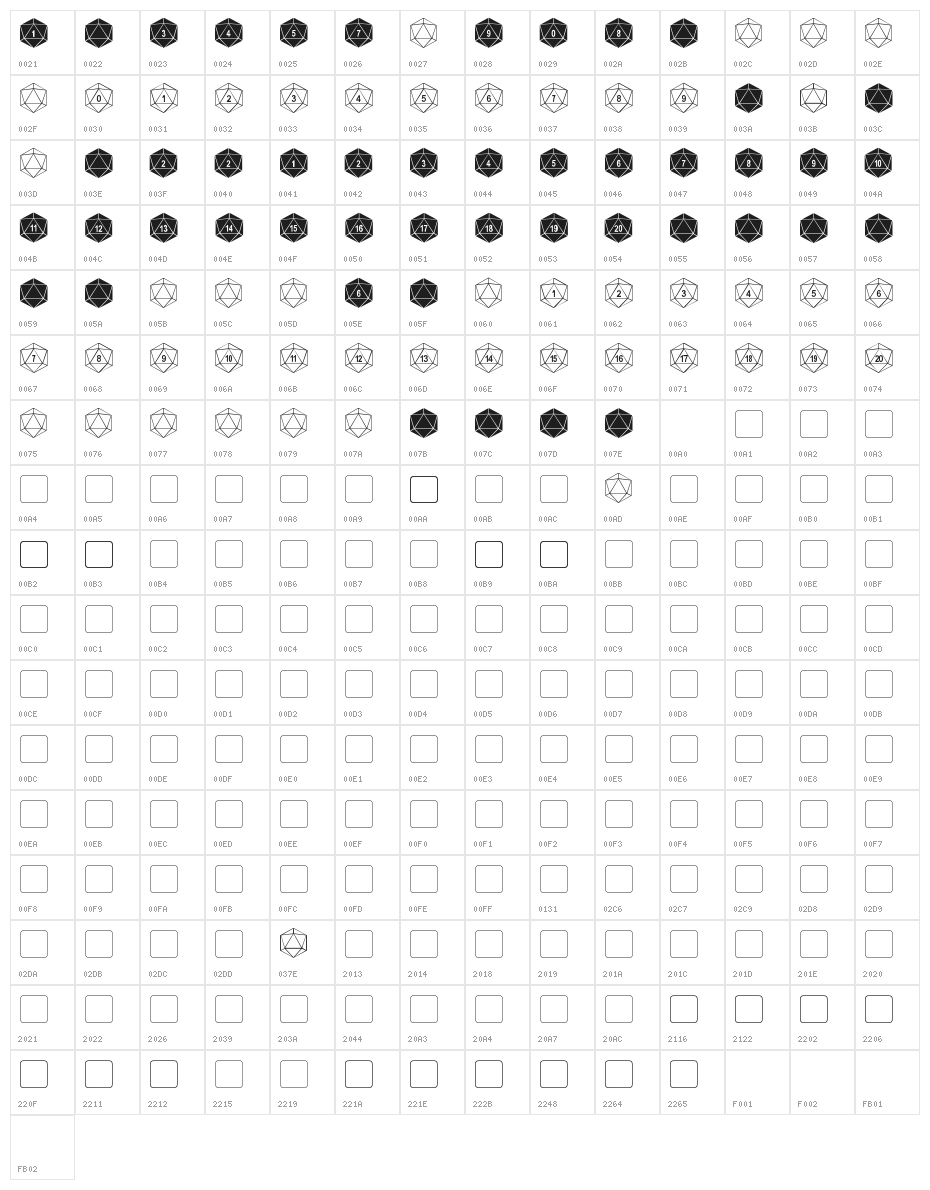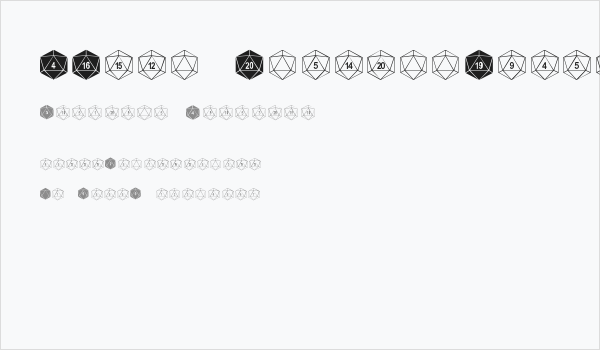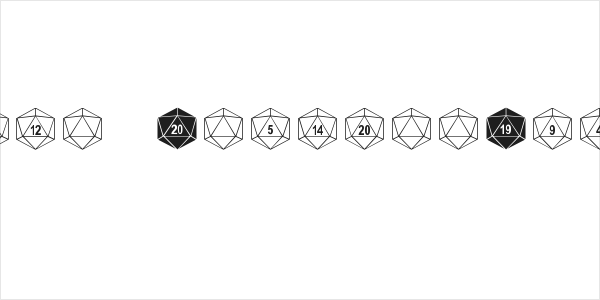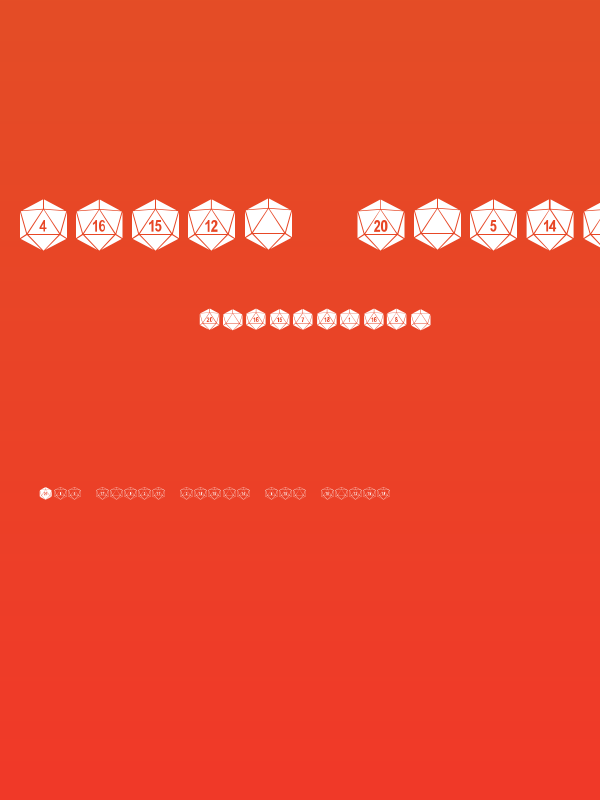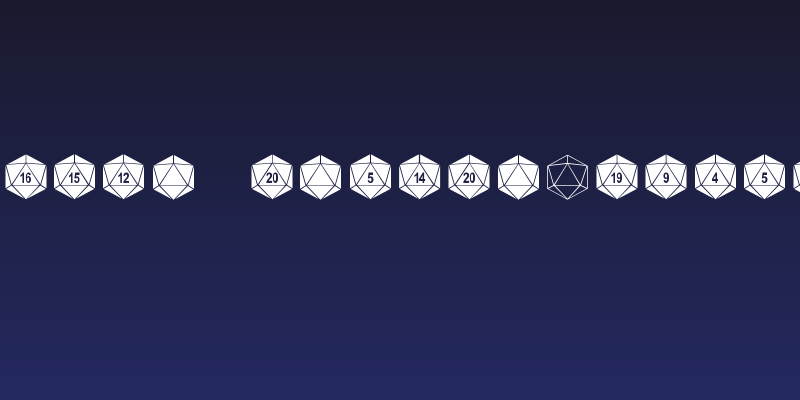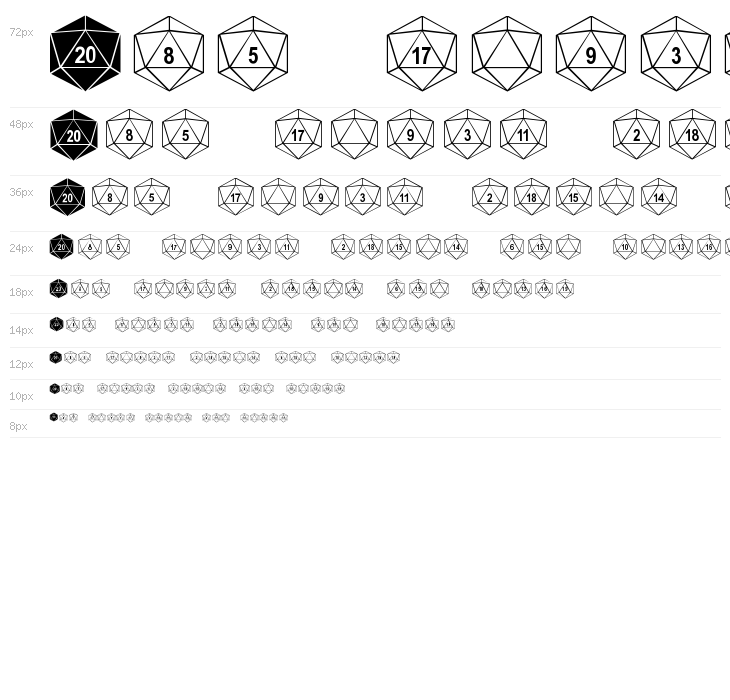
DPoly Twenty-Sider Font
| Caso d'uso | Decorative elements, Game design |
| Progetti proposti | Ideal for tabletop game designs, educational tools, or decorative elements in gaming-themed projects. |